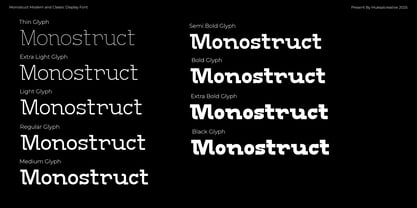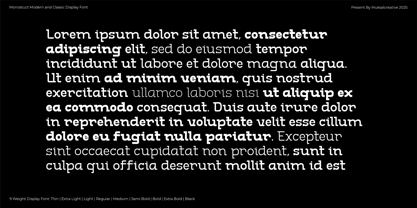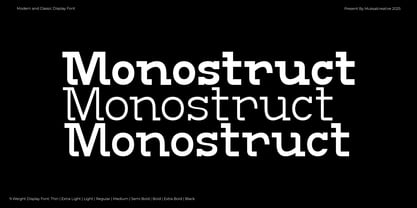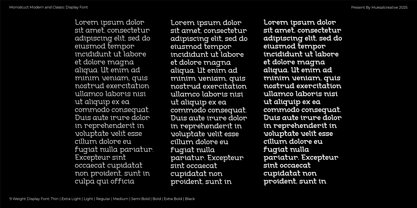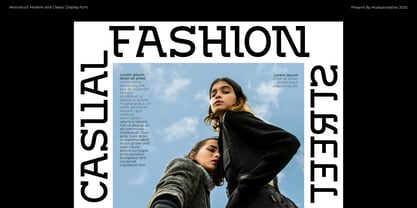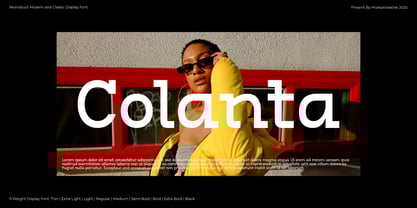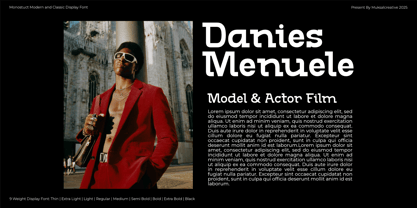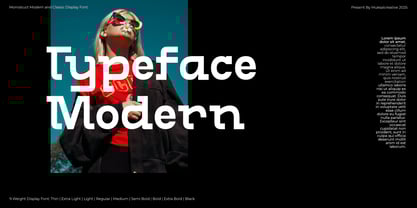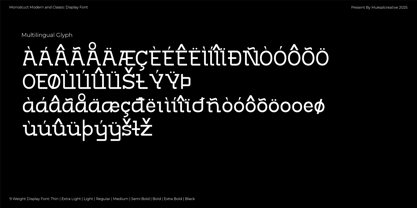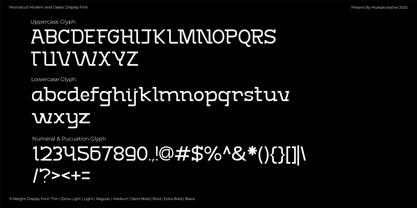
Monostruct
by Muksal Creatives
The Monostruct Font Family was designed by Muksalmina and published by Muksal Creatives. Monostruct contains 9 styles and family package options. More about this family
Monostruk is a strong and modern display font with a bold, industrial character. Designed with sturdy letterforms and a balanced geometric structure, it exudes a powerful and commanding presence. The bold slab-serif style adds a retro-futuristic touch, making it ideal for headlines, branding, posters, packaging, and editorial design.
With its robust and well-defined strokes, Monostruk is perfect for projects that demand a bold and confident visual identity. Whether used for logos, advertising, signage, or digital interfaces, Monostruk ensures a strong and striking impact, capturing attention with its solid, structured form